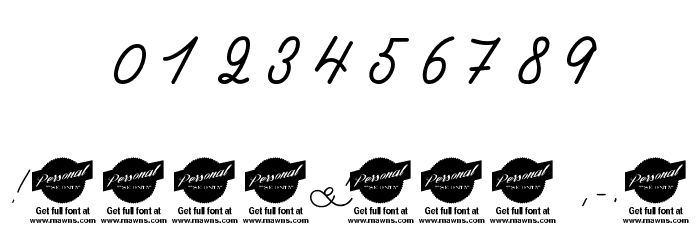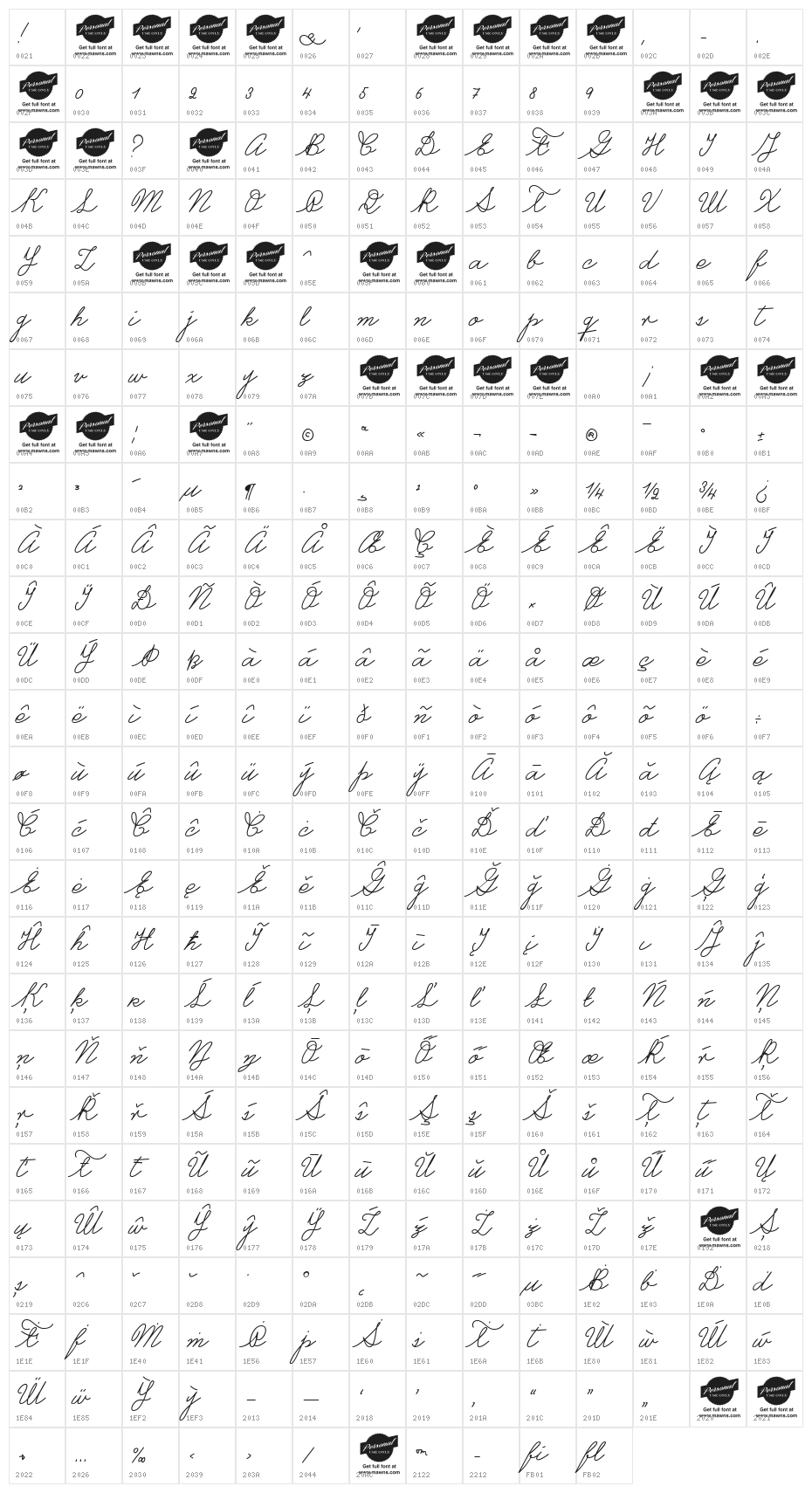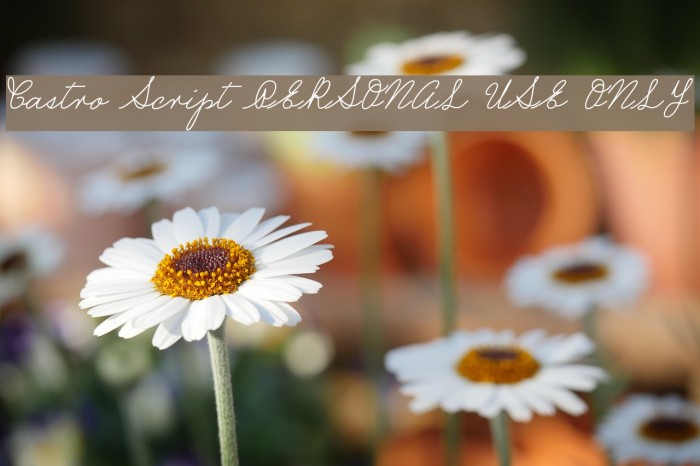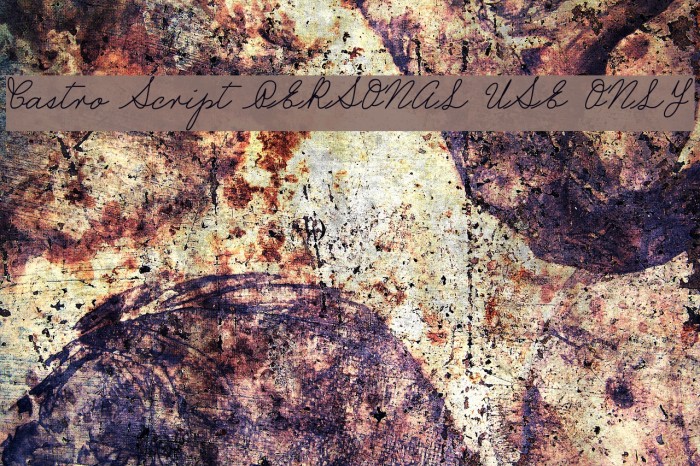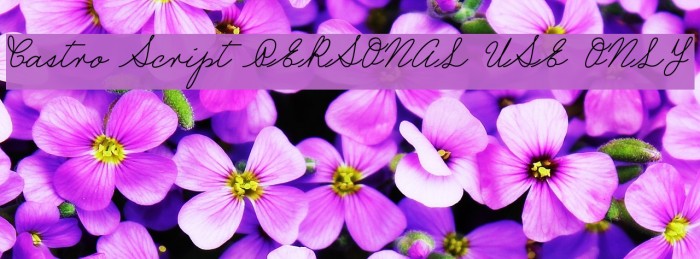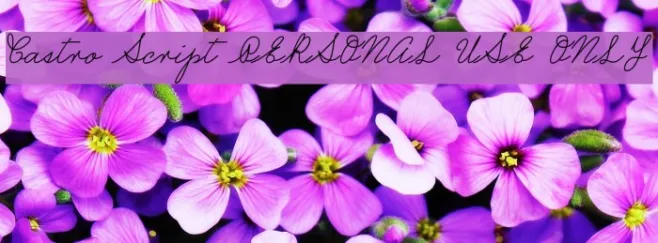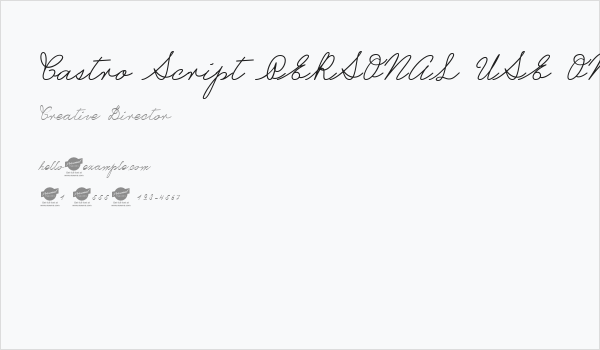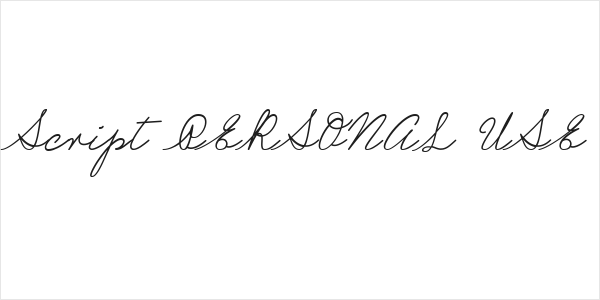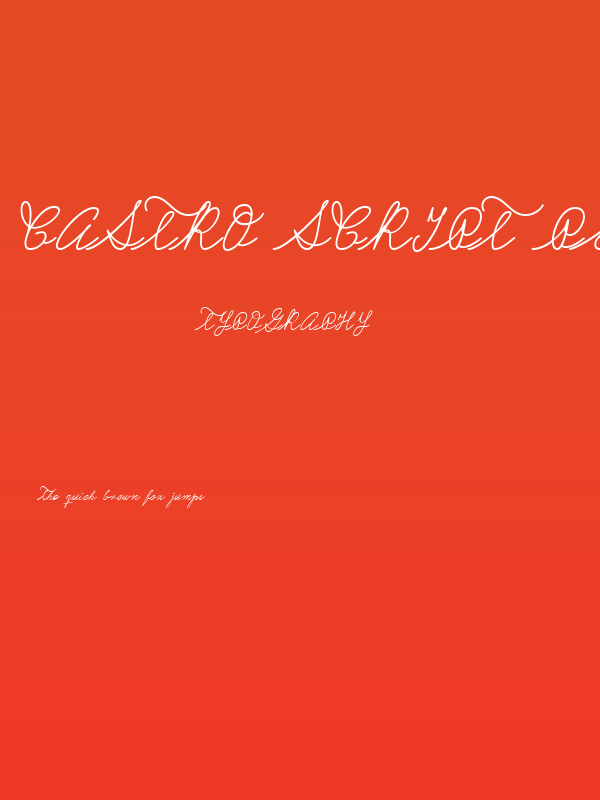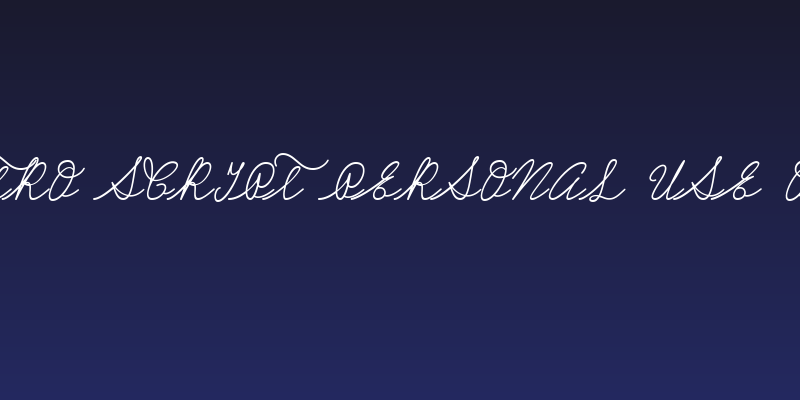
Castro Script PERSONAL USE ONLY Font
Castro Script PERSONAL USE ONLY Description
This elegant script font features a flowing, cursive style with smooth, connected strokes that emulate the fluidity of handwriting. The uppercase letters are ornate, with intricate loops and swirls, while the lowercase letters maintain a more subdued yet graceful appearance. The numerals and special characters are designed to complement the alphabet, maintaining the same elegant and sophisticated style. This font is perfect for adding a touch of class and elegance to any design project, making it ideal for invitations, greeting cards, and branding materials.